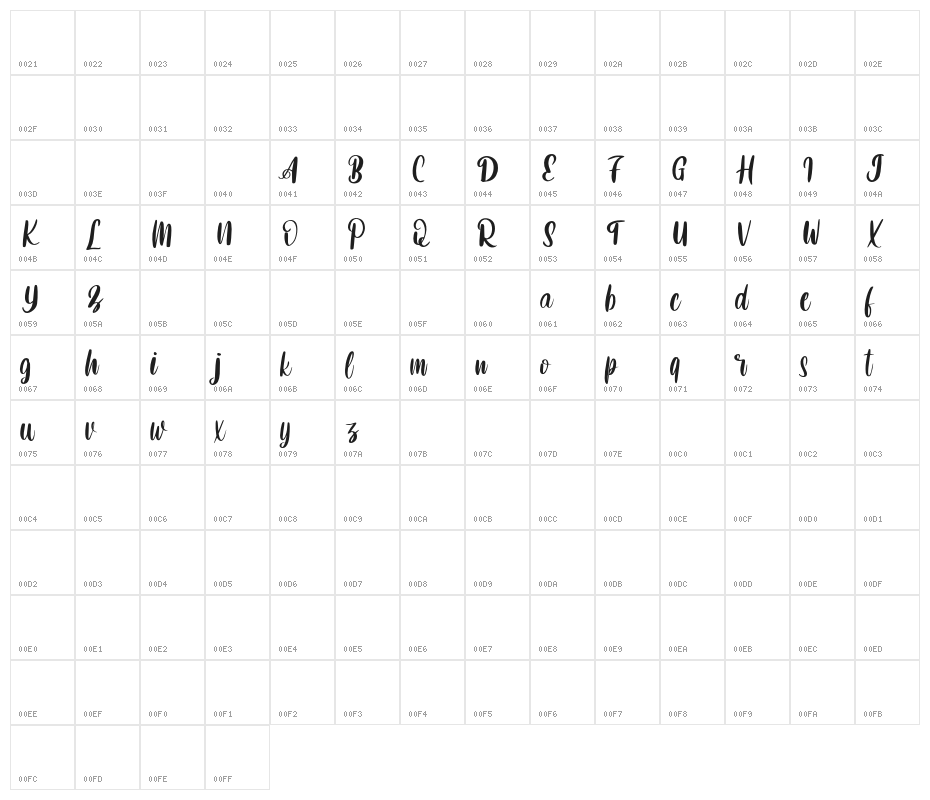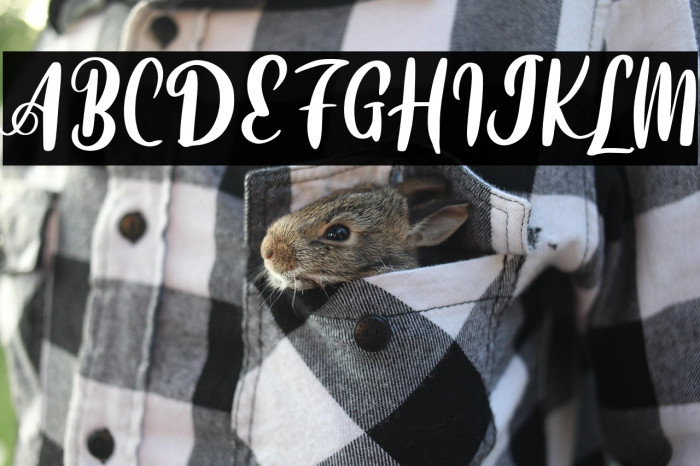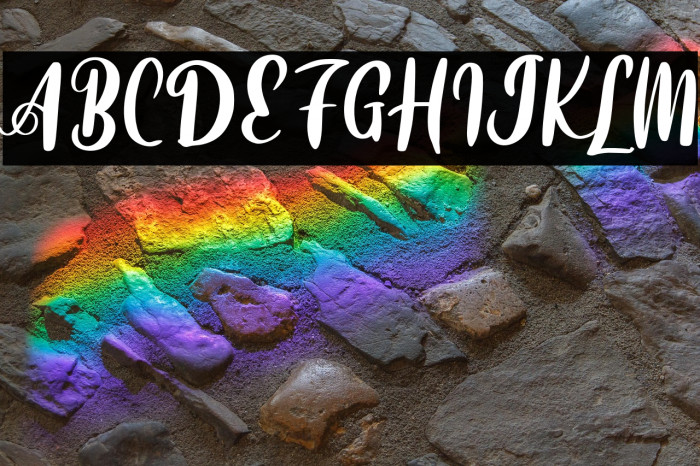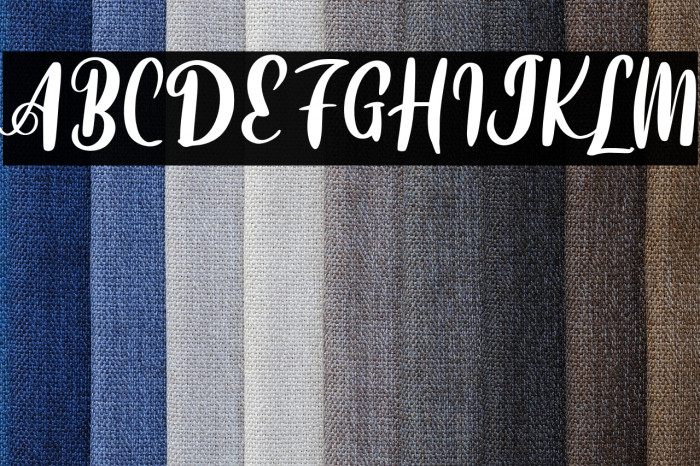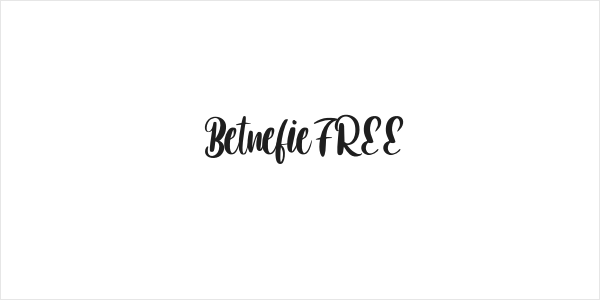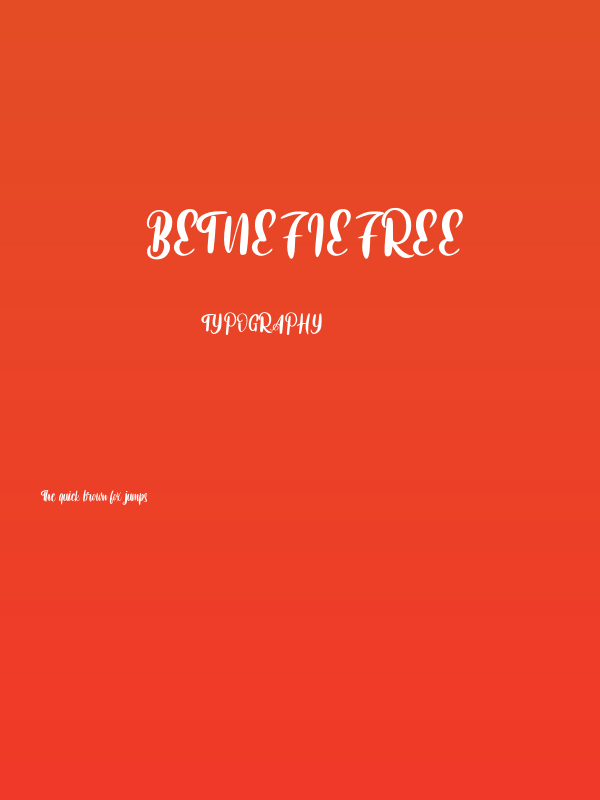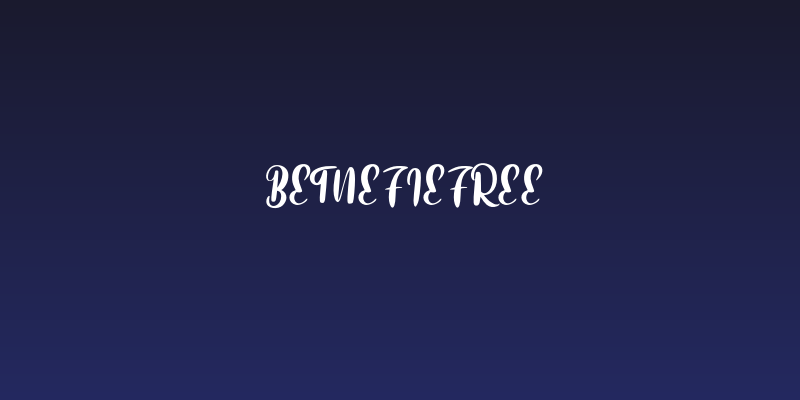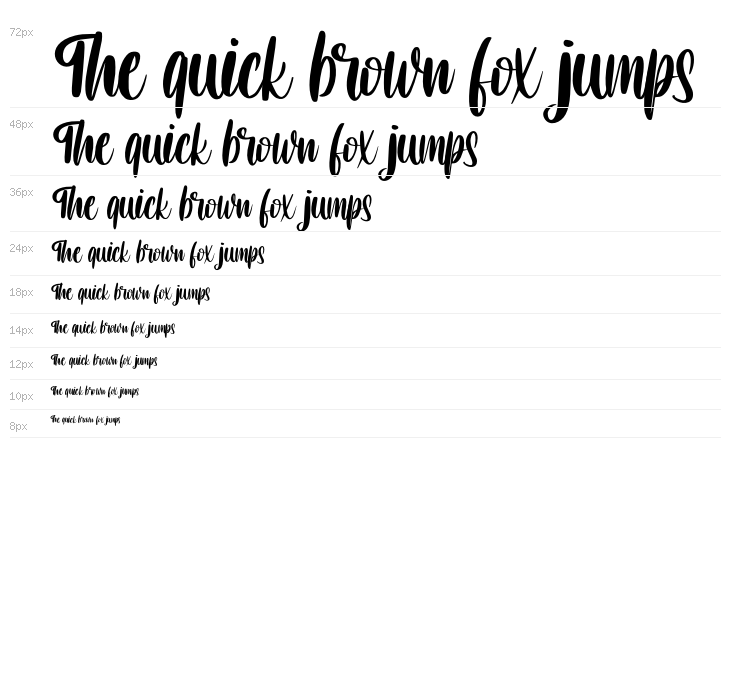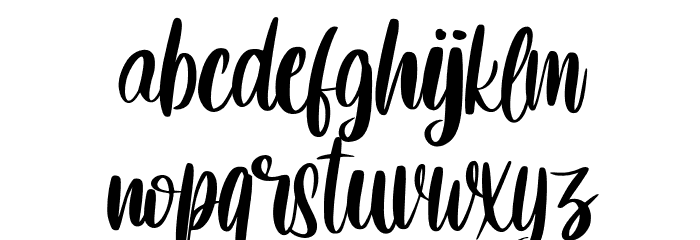
BetnefieFREE Font
BetnefieFREE Description
This font features a bold and expressive script style, characterized by its flowing, cursive letters that convey a sense of elegance and creativity. The uppercase letters are particularly striking, with sweeping curves and distinctive flourishes that add a touch of sophistication. The lowercase letters maintain a consistent style, with smooth connections between characters that enhance readability. The overall design is dynamic and lively, making it suitable for projects that require a personal and artistic touch. The font's bold weight and high contrast between thick and thin strokes contribute to its eye-catching appearance.